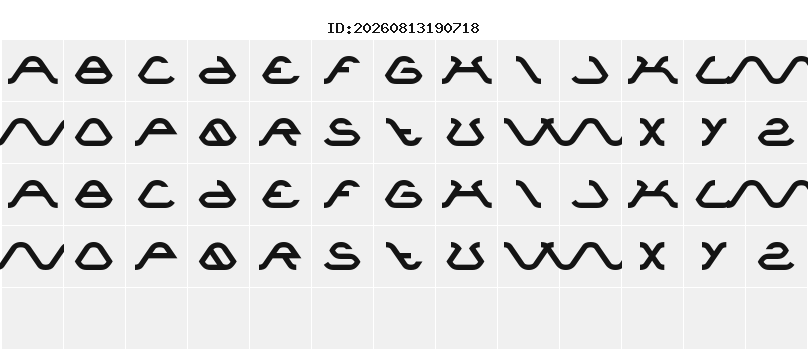
spider Preview
• Font Name: spider
• Font ID: spider:Version 1.00
• Full Font Name: spider
• Version: Version 1.00 August 1, 2011, initial release
• PostScript Name: spider
• Designer: 桴瑰㨯⽷睷⹤慦潮琮捯洯睩湯⵳⵫慤楲⹤㈲〹
• Manufacturer: 桴瑰㨯⽷睷⹤慦潮琮捯洯睩湯⵳⵫慤楲⹤㈲〹
About spider.ttf
spider.ttf is a modern, elegant sans-serif font designed for ultimate readability and visual harmony. Perfect for branding, headlines, web design, and print materials.